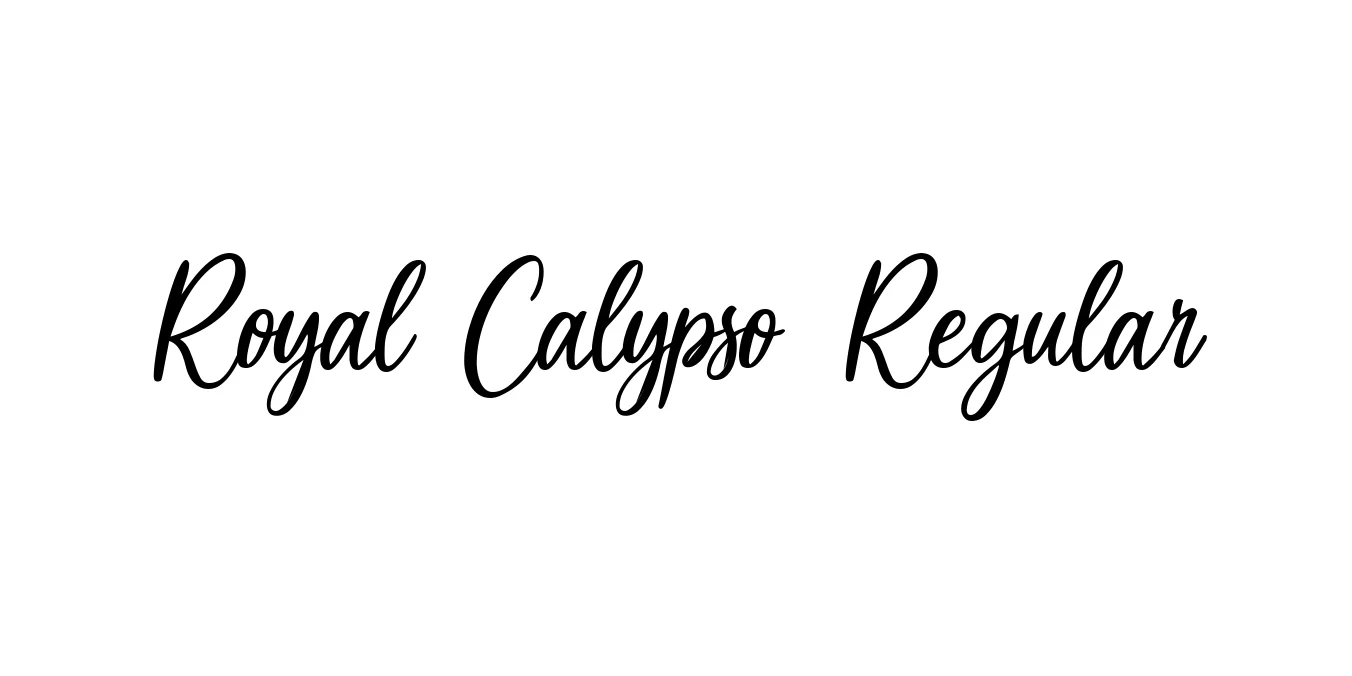
Royal Calypso Regular
Designed by Inspirationology
| Font Name | Royal Calypso |
| Designer | Inspirationology |
Royal Calypso Regular emerged as a prominent choice in the modern brush script movement, designed to capture the spontaneous energy of hand-lettering while maintaining high-fidelity digital versatility. Its origins are rooted in the boutique type design trends of the late 2010s, where the demand for organic, authentic branding shifted away from rigid geometric sans-serifs toward more humanistic, artisanal expressions. This typeface was specifically engineered to emulate the natural flow of ink on textured paper, making it an essential tool for designers seeking a balance between casual elegance and professional polish.
From a technical standpoint, Royal Calypso features a dynamic x-height and expressive ascenders that create a rhythmic, melodic flow across the baseline. The visual weight is meticulously distributed with a high-contrast ratio typical of a flat-nib brush, ensuring that the thick downstrokes provide a sturdy structural foundation while the hairline connectors maintain a sense of airiness. Legibility is preserved through generous counter-spaces and a deliberate avoidance of overly dense ligatures, allowing the font to remain functional even at medium sizes. The terminals are finished with a natural taper, providing a sense of kinetic motion that guides the viewer's eye through the text efficiently.
Royal Calypso Regular Best Uses
Crafting unique, hand-lettered brand identities with a personal touch.
Eye-catching headlines for lifestyle magazines and fashion blogs.
Adding a sophisticated, artisanal feel to wedding invitations and event cards.
Ideal for organic or luxury product labels that require a humanistic aesthetic.